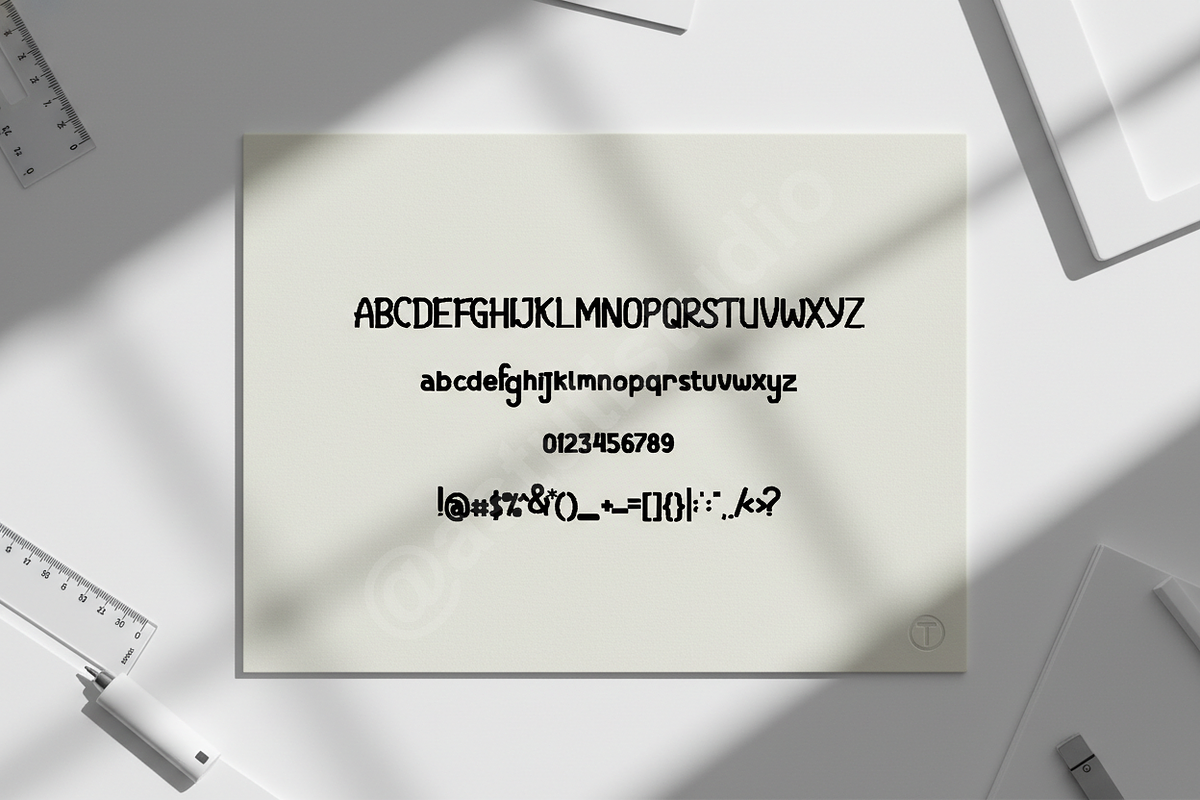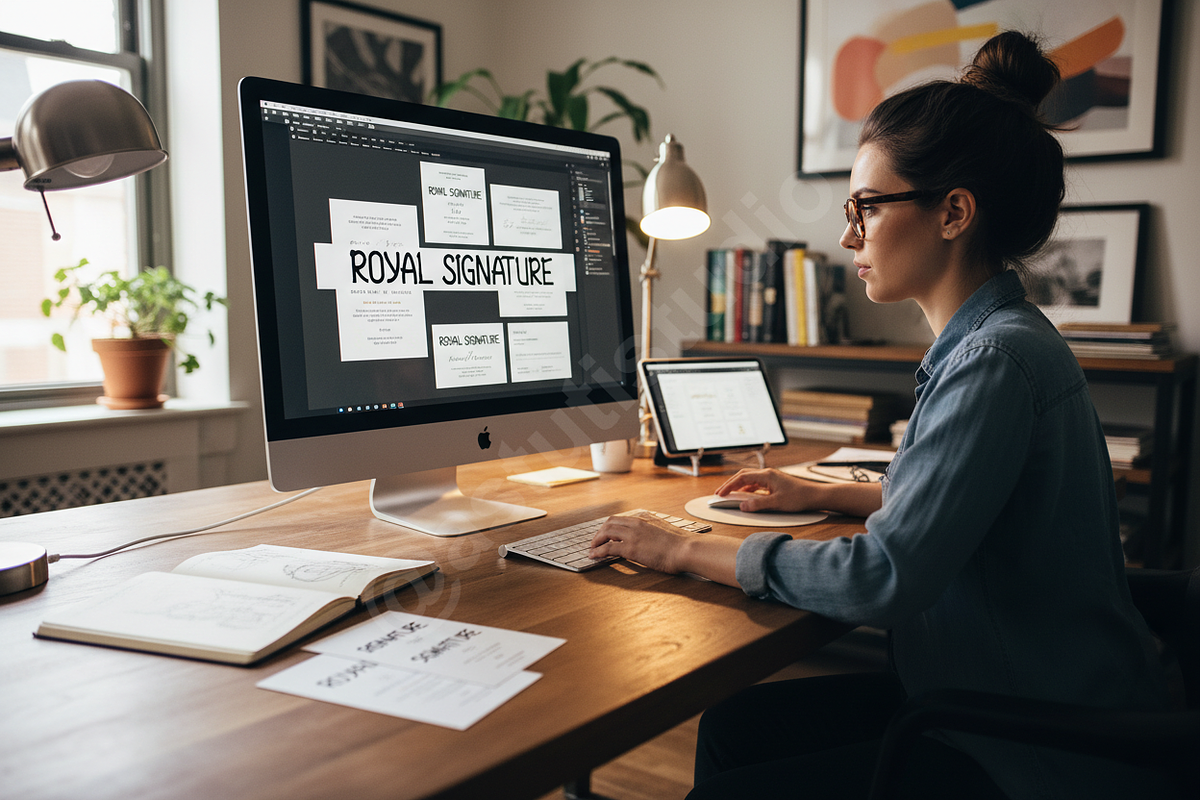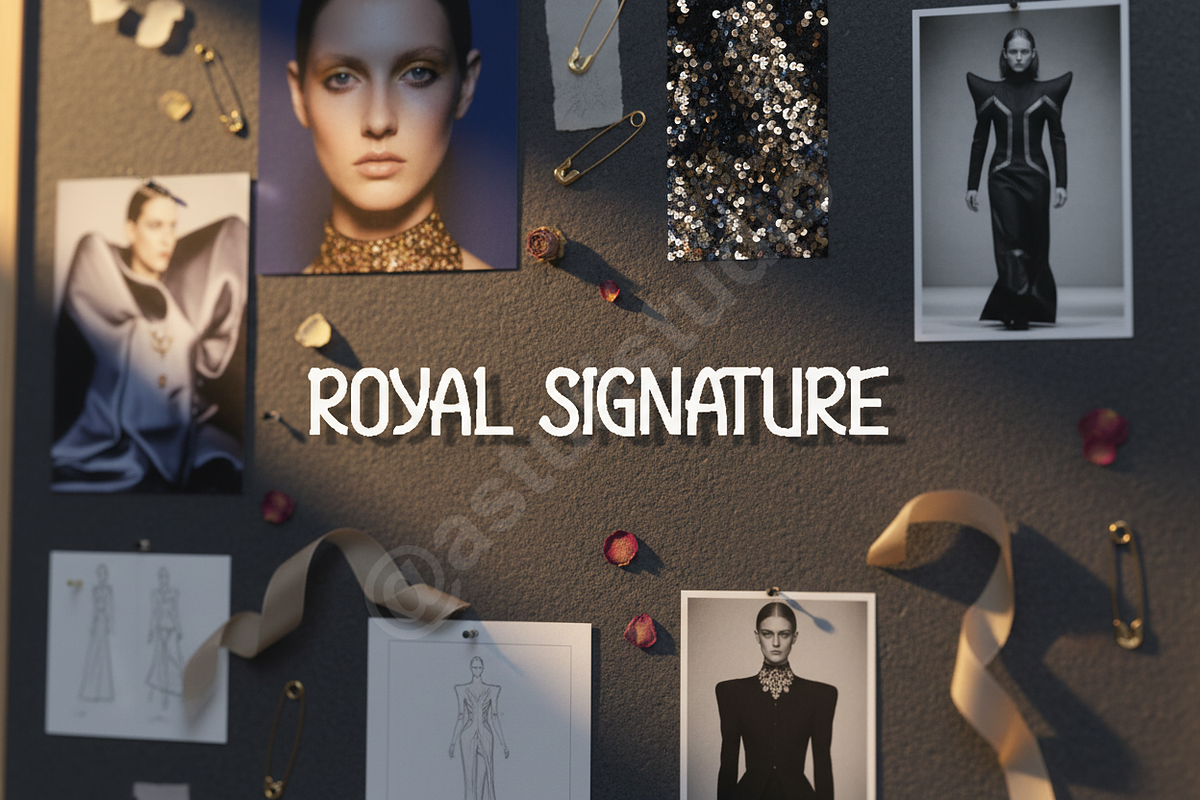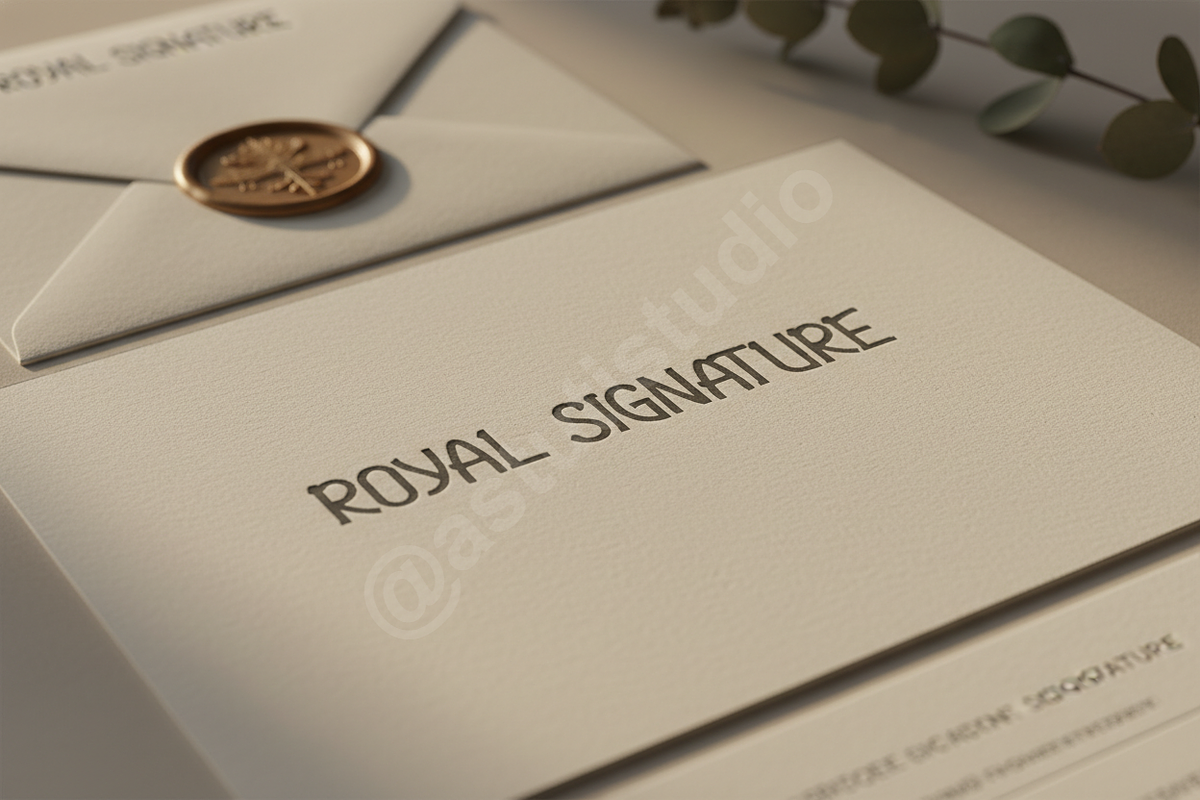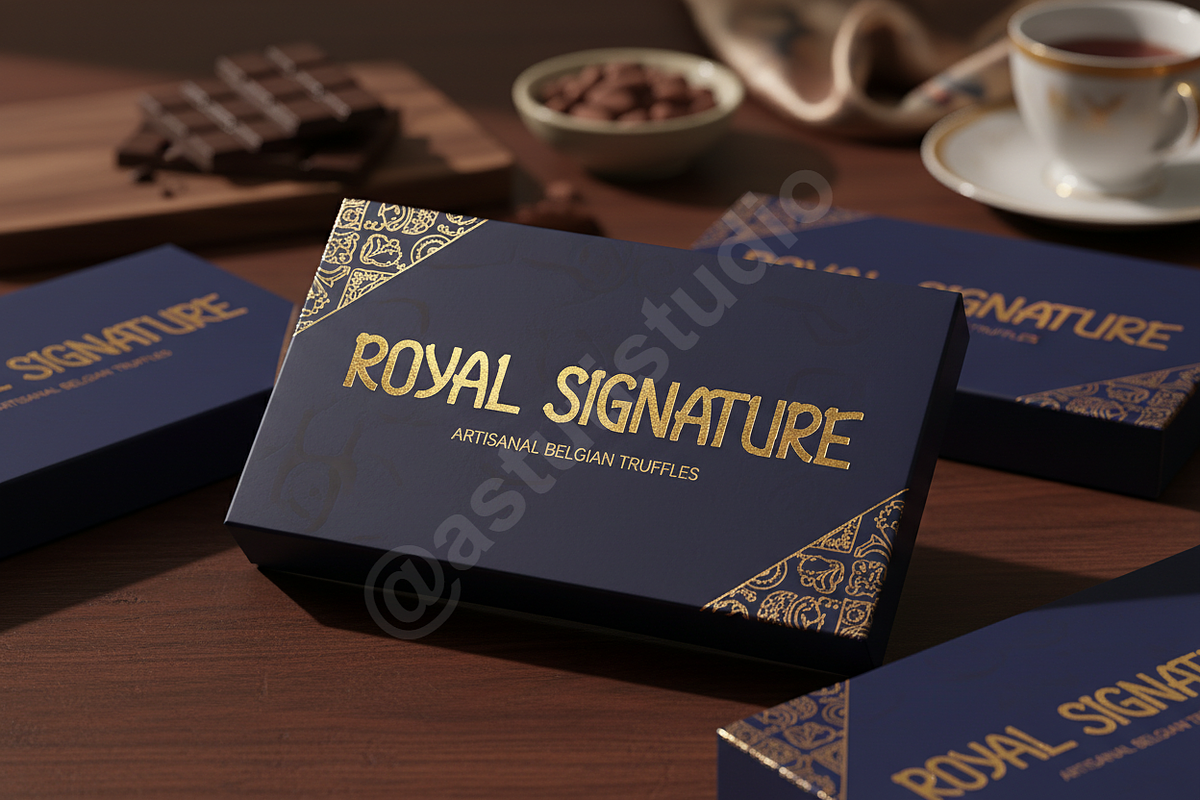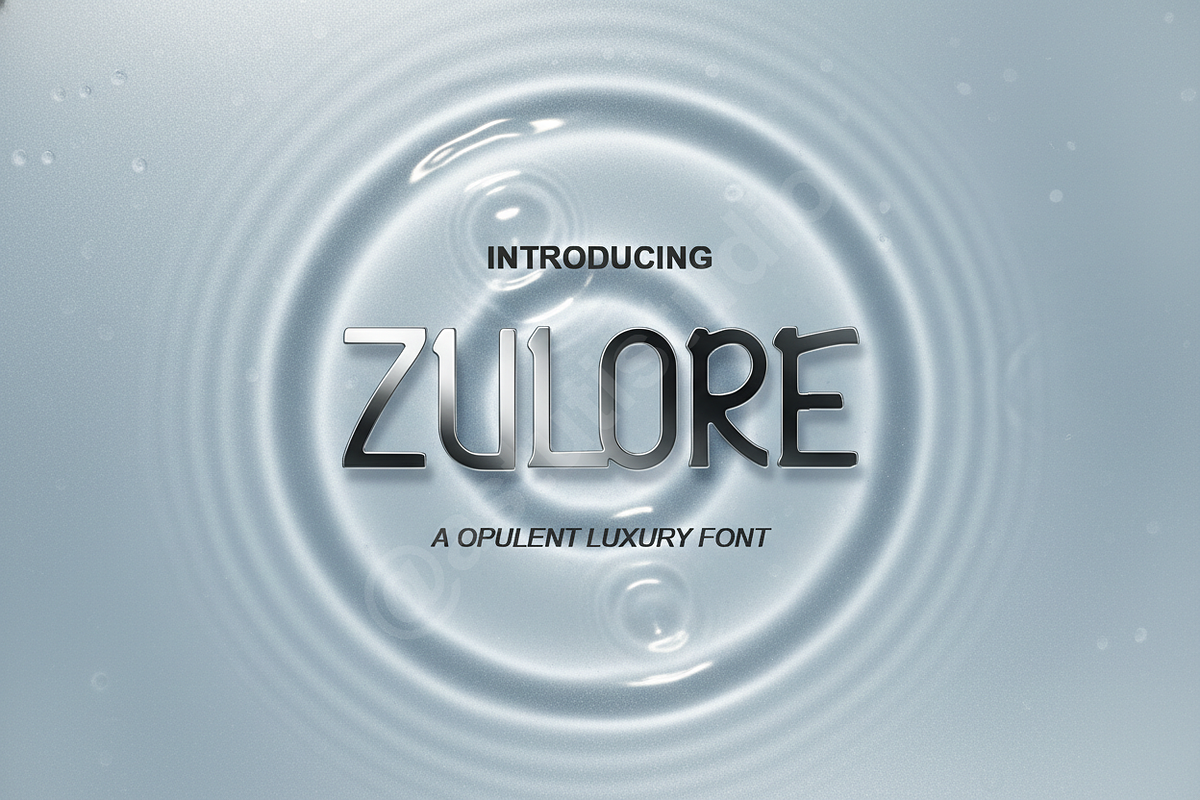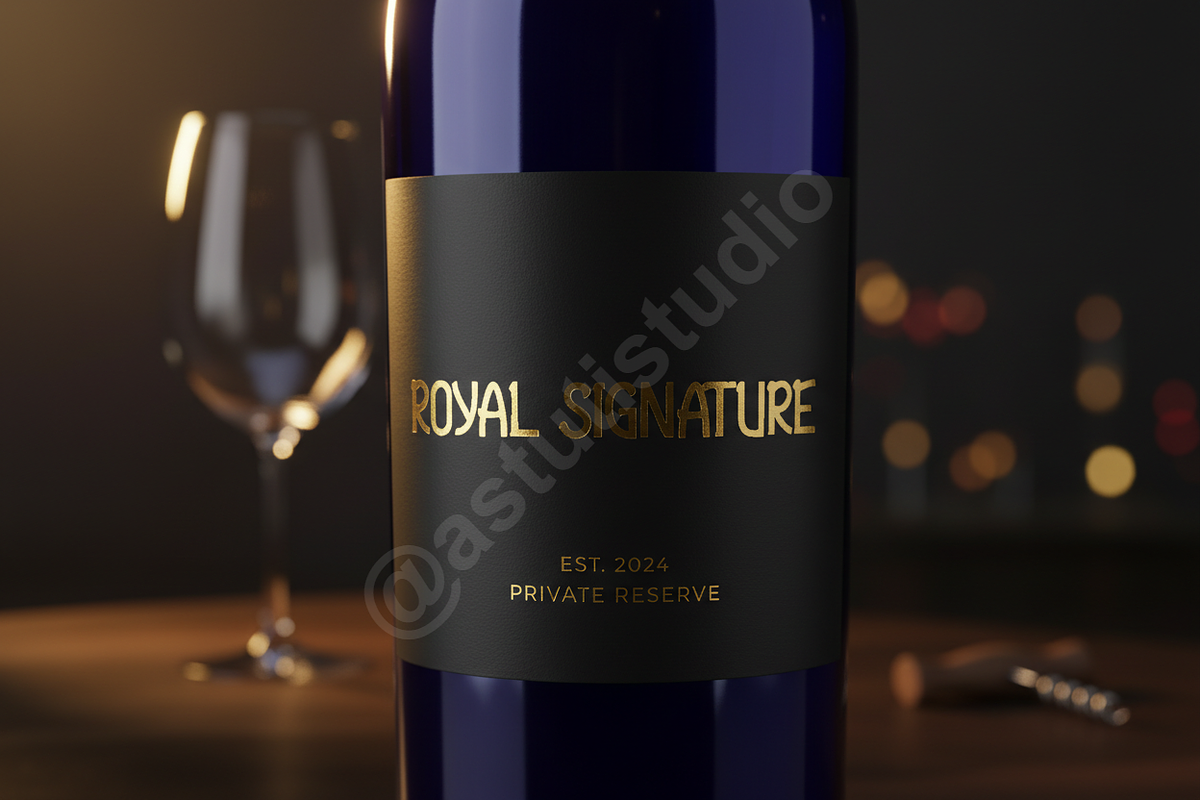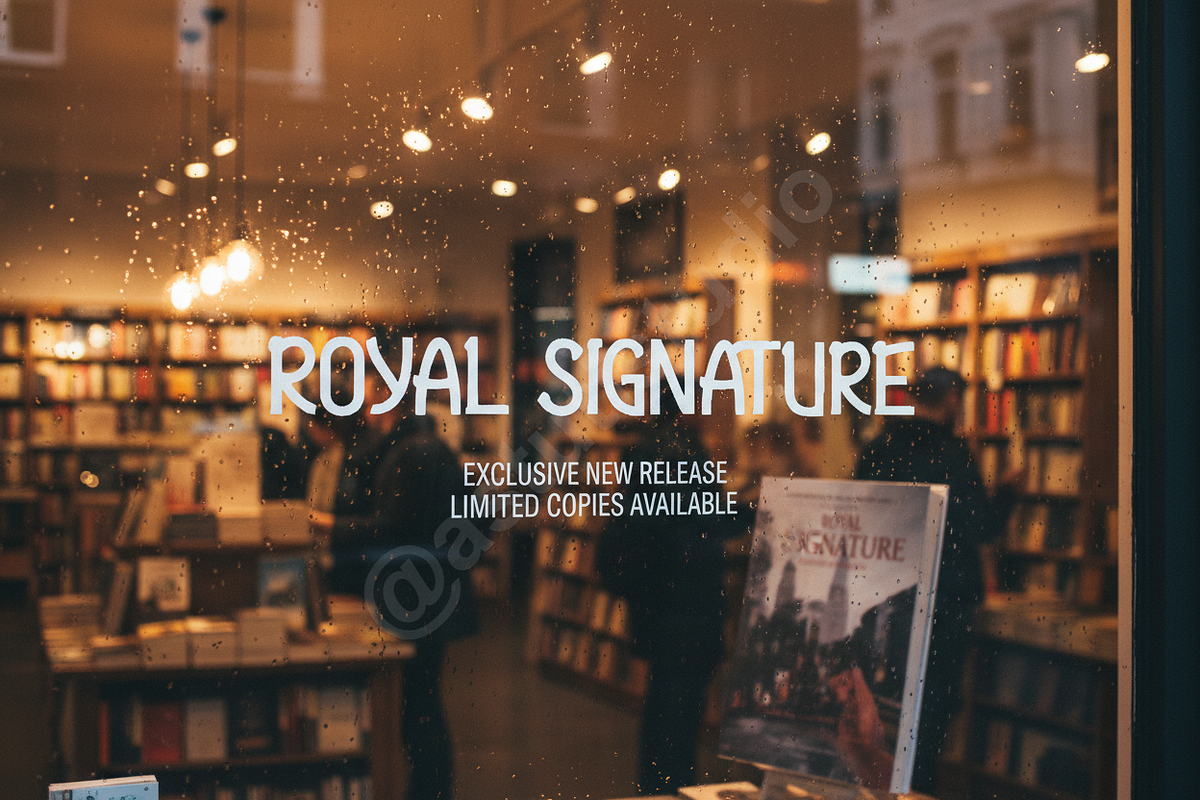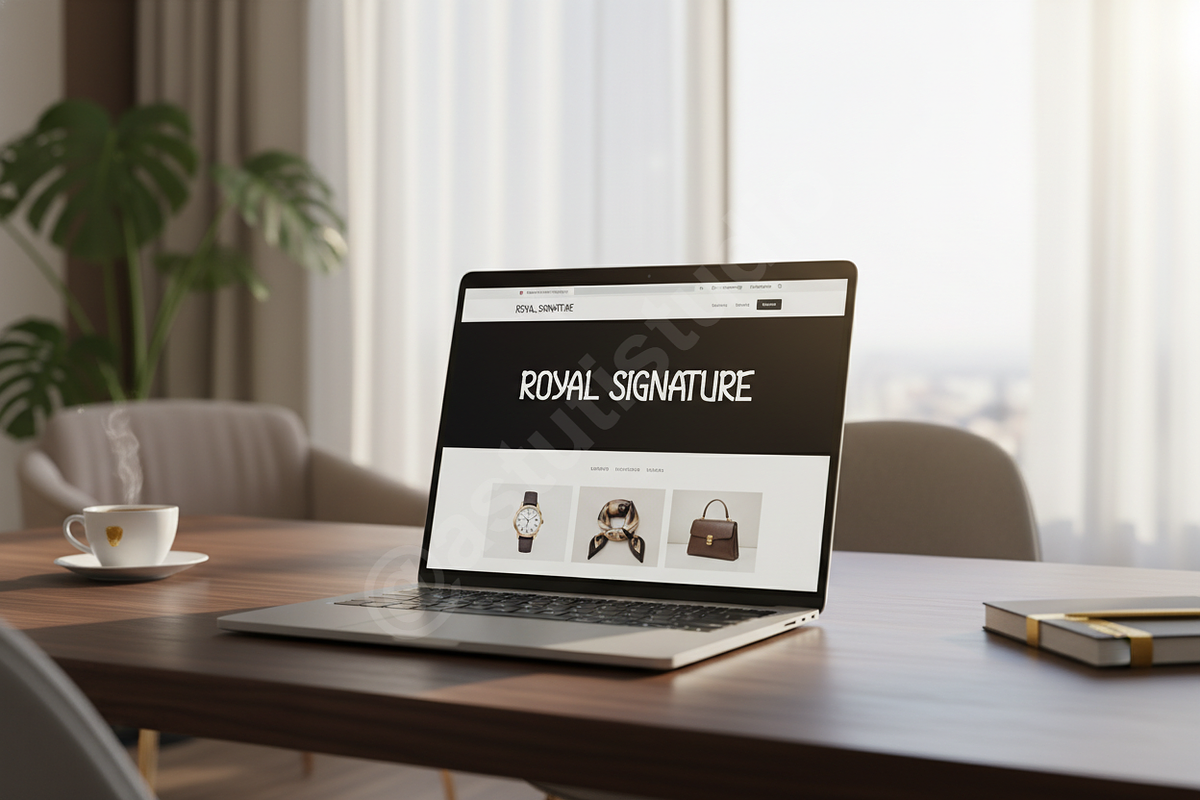
Zulore — Luxury Display Serif Typefa
Introduction:
Zulore is a highly refined and sophisticated display serif typeface crafted for the modern luxury market. It blends classic proportions with subtle, contemporary curves, creating an unforgettable impression. Designed specifically for high-impact visual communication, Zulore is the definitive choice for brands seeking unparalleled elegance and prestige. Use Zulore to elevate editorial designs, define luxury branding campaigns, and create sophisticated, timeless social media graphics.
- Timeless Sophistication: A perfect balance of classic structure and modern flair.
- OpenType Features: Includes extensive stylistic alternates and custom ligatures for truly unique word shaping.
- Optimized Kerning: Meticulously refined spacing for seamless readability at both large and small scales.
- Full set of Uppercase and Lowercase letters
- Numerals, Punctuation, and Standard Symbols